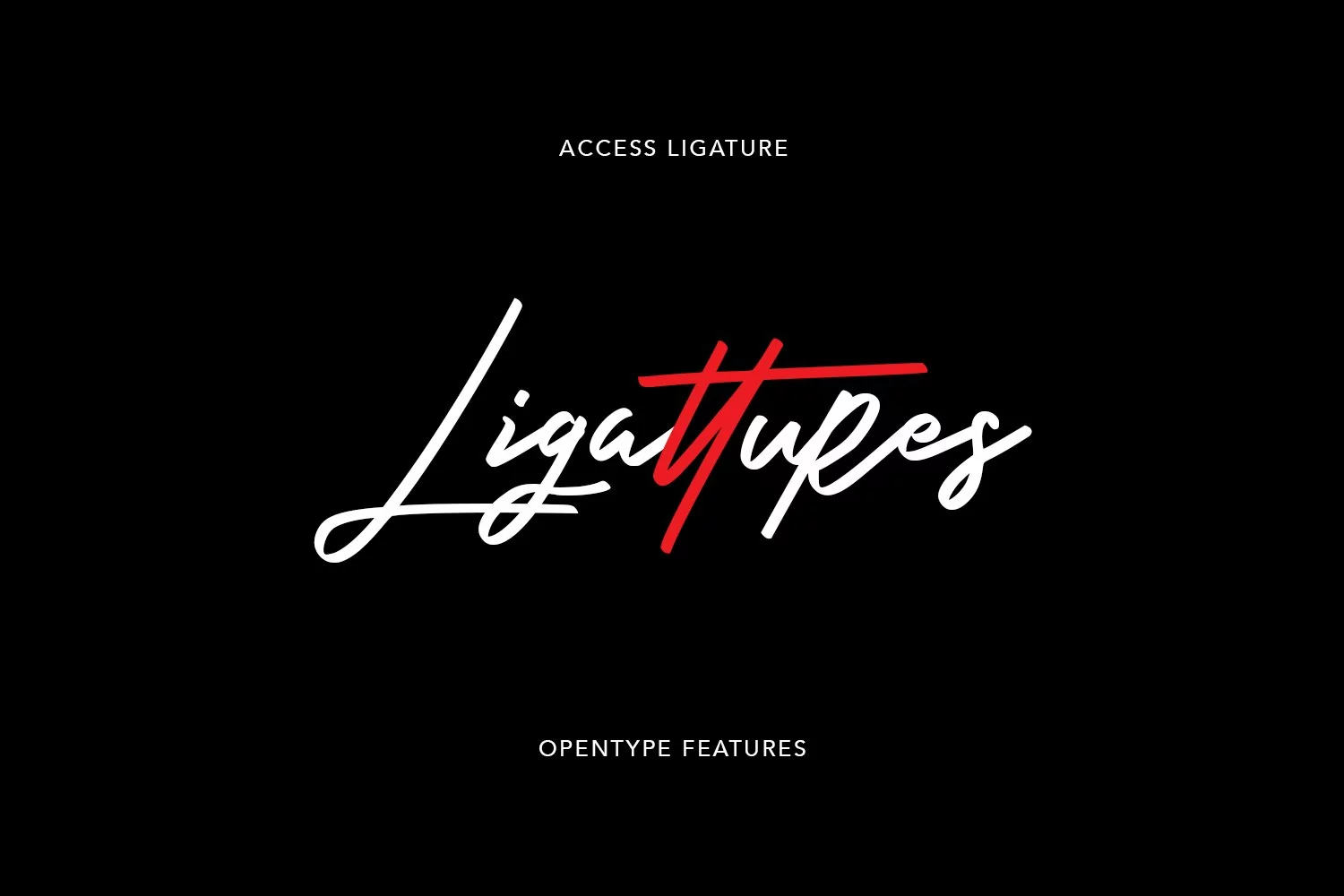
Ryland Heights Signature Script Font
Ryland Heights got style and love all the luxuries in life. It's highly recommended to turn your Opentype features (Ligature) on while using the script font. Your text looks like natural handwriting.